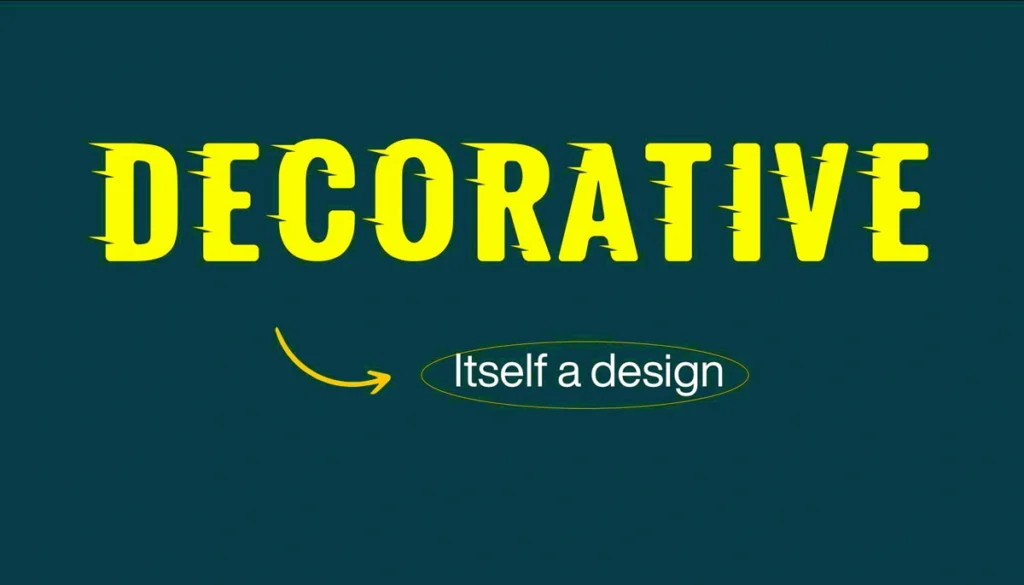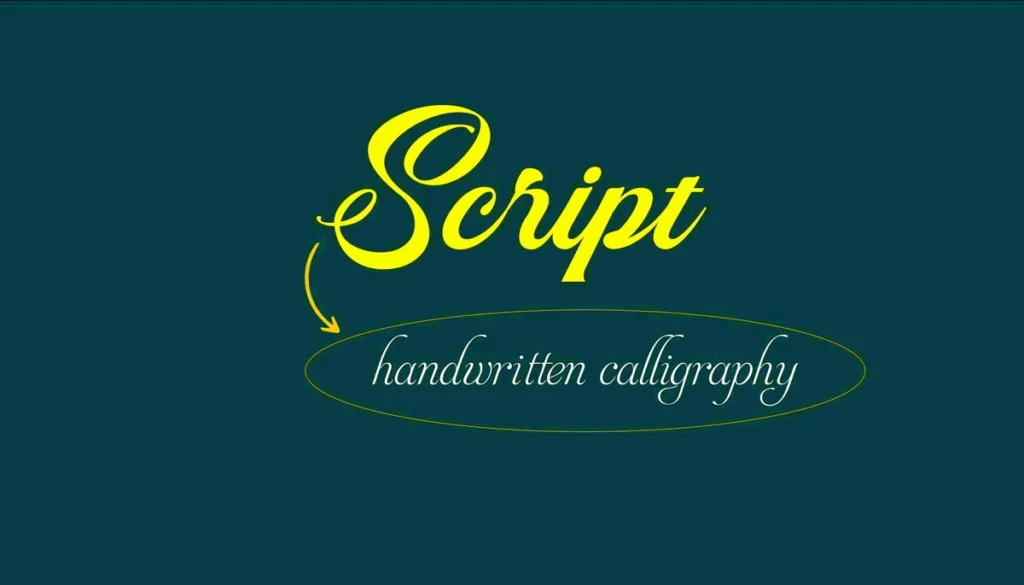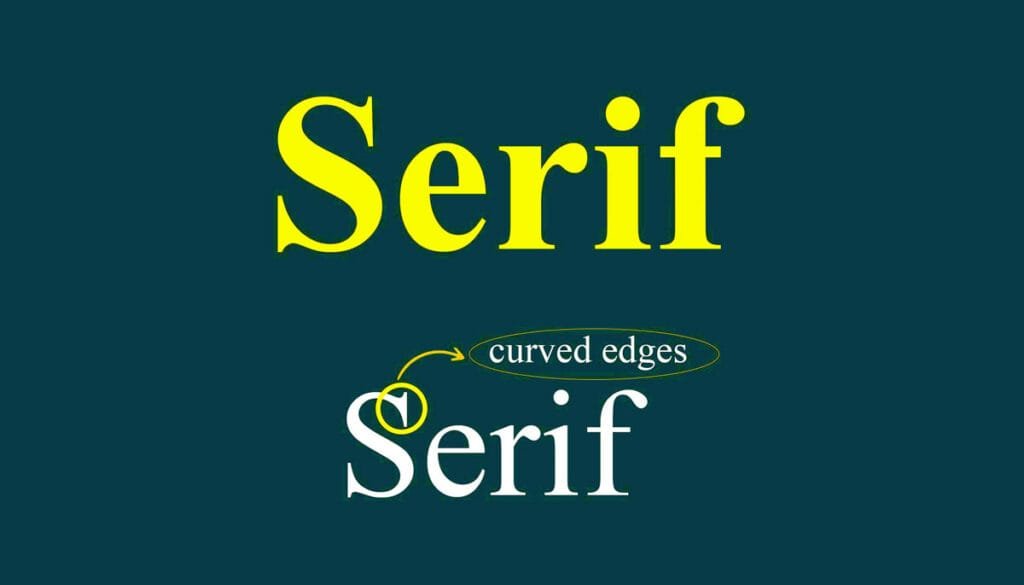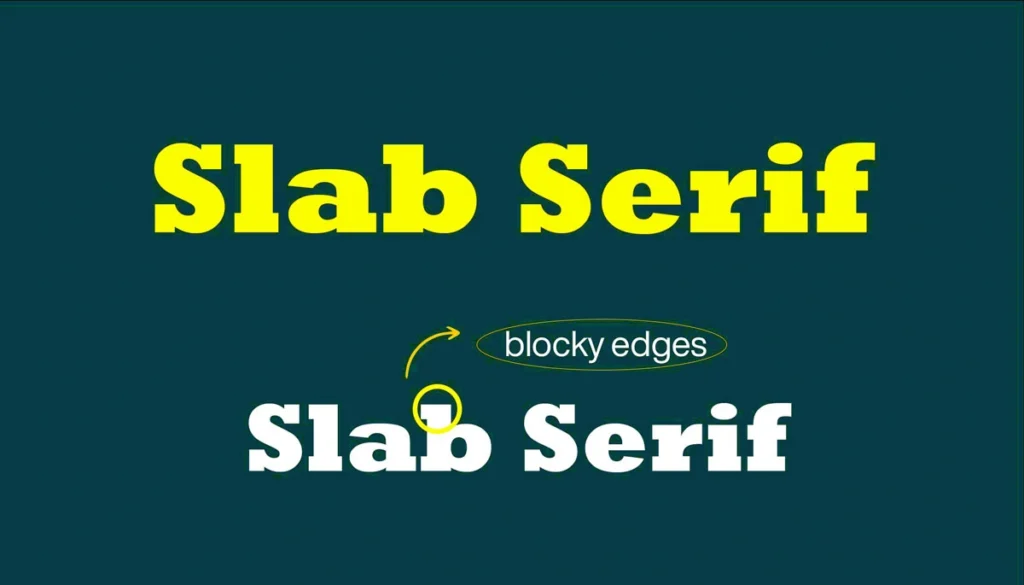
Essential Font Psychology Tips Often Missed by Designers
Typography is more than just arranging letters—it’s a powerful tool that shapes the way audiences view and interact with your brand. Many graphic designers overlook the essential principles of font psychology, which can have a profound impact on their work. The fonts you choose can evoke emotions, convey credibility, and even increase conversions.
In this guide, we’ll explore key font psychology tips that are often overlooked, diving into the five major font categories—serif, sans serif, slab serif, script, and decorative. We’ll discuss their unique characteristics, and strengths and how leading brands effectively leverage these fonts to enhance their identity and engage their audiences. By understanding these essential tips, you can improve your design work and create more engaging visual messages.
1. Serif Fonts
font psychology in Serif typefaces
Serif fonts are timeless and have a rich history, originating from Roman inscriptions where small lines, serifs, were engraved on stone to improve readability and prevent cracking. This stylistic choice became a hallmark of formal typography, a symbol of tradition and authority. Over the centuries, serif fonts have evolved in different cultural contexts – from the Renaissance era, where they decorated scholarly works, to their prominence in the publishing industry during the Industrial Revolution.
Their distinctive feature is the small lines or strokes, known as serifs, attached to the end of letters, which contribute to their classic and formal aesthetic. This simple but impactful addition gives serif fonts their classic and formal aesthetic. But what makes them different, and why are they preferred in certain design contexts? Let’s dig deeper.
Feel and Appearance
Serif fonts radiate an aura of elegance, sophistication, and tradition. They are often associated with established institutions, evoking a sense of reliability and trustworthiness. Their intricate designs and wide strokes make them a popular choice for conveying formality and sophistication.
• Psychological Impact: Serif fonts create a sense of reliability, heritage, and authority. They connect well with audiences looking for consistency and professionalism.
• Visual characteristic: The high contrast between thick and thin strokes and decorative serifs creates a distinctive and dazzling look.
Where Serif Fonts Fit
Serif fonts are highly versatile but particularly shine in:
• Print Media: Books, newspapers, and magazines benefit from serif fonts’ exceptional readability over long text passages.
• Luxury Branding: High-end brands use serif fonts to signify exclusivity and timeless elegance.
• Formal Institutions: Universities, banks, and law firms often adopt serif fonts to reinforce their legacy and dependability.
Their structured and complex design conveys a sense of permanence and trust, which is important for industries that rely on tradition and authority. For example, a university logo in a sans serif font may look too informal, failing to convey the seriousness of the institution.
Real-World Brand Examples
• The New York Times: Their serif logo underscores their legacy and journalistic authority, making it synonymous with credible reporting.
• Tiffany & Co.: The serif font in their branding conveys timeless luxury and an air of exclusivity, perfectly complementing their brand ethos.
Famous Serif Fonts
• Times New Roman: A quintessential font for academic and professional documents.
• Garamond: Known for its elegance, often used in literary publications and fine art.
• Baskerville: A classic choice for formal, high-end applications due to its sophistication and readability.
2. Sans Serif Fonts
font psychology of san serif typefaces
Sans serif fonts emerged as a modern alternative to serif fonts, characterized by their clean and minimalist design. Their rise to prominence is deeply intertwined with the cultural shifts of the early 20th century, particularly the modernist design movement. As society embraced industrialization and functionality, designers sought typefaces that reflected these ideals – discarding the decorative serifs of the past in favor of clarity and simplicity.
For example, the Bauhaus school of design favored sans serif fonts as a symbol of progress, which aligned with their character of form following function. This cultural pivot solidified sans serif typefaces as symbols of modernity and innovation, making them a foremost in contemporary design. The lack of decorative serifs gives them a contemporary and accessible feel, making them crucial in digital and branding design.
Feel and Appearance
Sans serif fonts are straight and highly legible. They are often associated with innovation, simplicity, and openness. Their neutral design allows them to be adapted seamlessly to a variety of contexts.